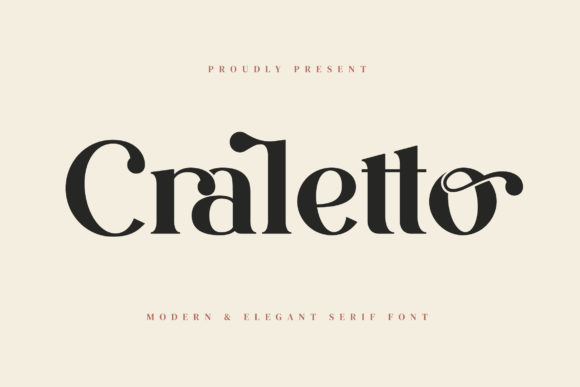
Unleash the charm and elegance of your words with the Craletto Font, a captivating serif masterpiece from Aqeel_Art. Designed to ignite creativity and elevate your projects to new heights, Craletto is the perfect choice for crafting ideas that demand attention.
Immerse yourself in its timeless beauty, meticulously crafted to evoke a sense of sophistication and grace in every letterform. Craletto's distinct serifs exude a classic aura that adds a touch of refinement to logos, branding, labels, cards, and countless other creations.
With its remarkable versatility, Craletto effortlessly adapts to a symphony of design styles, from the delicate charm of wedding invitations to the commanding presence of marketing materials. Its refined curves and balanced proportions create a visual harmony that captivates and inspires.
Elevate your digital presence with Craletto's impeccable readability, ensuring your messages shine with clarity and impact. Its carefully considered letter spacing and kerning invite readers to delve into your content with ease, leaving a lasting impression that resonates long after the final word is read.
Experience the transformative power of Craletto today and witness how its elegance elevates your creative visions, leaving an enduring legacy of beauty and impact. Let your words dance across the screen or flow effortlessly onto the printed page, imbued with the timeless essence of Craletto.